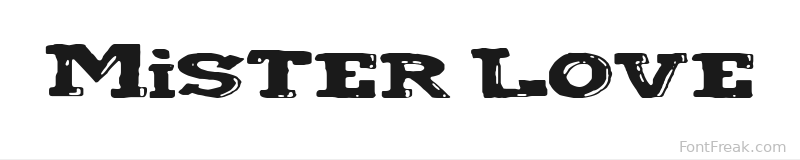
Mister Love
Mister Love is a charming display font created by woodcutter Manero, characterized by its unique blend of rustic and playful elements. This font falls within the decorative category, making it a perfect choice for projects that require a touch of personality and whimsy. The visual characteristics of Mister Love include a bold stroke weight and an uneven texture that adds a handcrafted feel. The letters exhibit a moderate contrast, which enhances readability while maintaining their artistic flair. The spacing is well-considered, allowing the letters to breathe without appearing crowded, making it suitable for various applications.
Ideal use cases for the Mister Love font include wedding invitations, where its romantic and quirky style can set a delightful tone for the special day. It also works beautifully for movie posters, particularly in genres such as romantic comedies or independent films, where a unique font can capture attention. Restaurant menus can benefit from Mister Love’s warm and inviting appearance, enticing customers to explore the offerings. Additionally, it lends itself well to branding for artisanal products or boutiques, appealing to customers looking for something special and handcrafted.
The target audience for this font encompasses graphic designers seeking to add a distinctive touch to their projects, small business owners looking to create memorable branding, and content creators who want to infuse personality into their digital content. The Mister Love font free download offers an accessible option for anyone eager to enhance their creative work with a font that radiates charm and character. What sets this font apart is its blend of artistry and functionality, making it a standout choice for anyone aiming to leave a lasting impression.